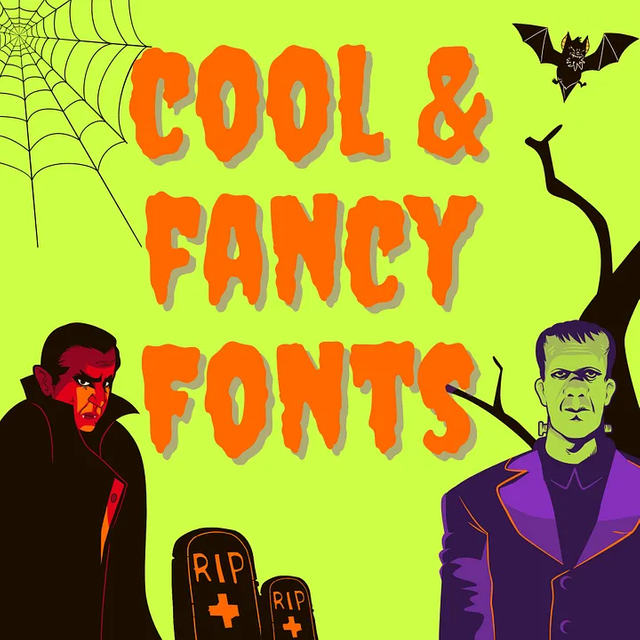
In visual communication, typography is a powerful tool to evoke emotions and set the tone for content. When embracing the allure of fancy fonts or the “tulisan aesthetic,” having a repertoire of reliable resources and tools is akin to unlocking a treasure trove of creative possibilities.
Countless digital platforms offer a plethora of fancy fonts, catering to every style and preference. Websites like Google, Adobe, and DaFont have emerged as havens for typography enthusiasts. These platforms curate an array of fonts, ranging from elegant scripts to decorative serifs, granting access to fonts that elevate the aesthetic appeal of any project.
Font marketplaces, such as Creative Market and My Fonts, are treasure troves for discovering unique fancy fonts crafted by talented designers. These marketplaces often provide previews, allowing users to visualize how a particular font might complement their designs. It empowers individuals to make informed choices that align with their creative visions.
Graphic design software, like Adobe Illustrator and Canva, offers built-in libraries of fonts, making it effortless to incorporate fancy fonts into various design projects. With intuitive interfaces, these tools democratize the creation of visually striking content, even for those who may not be typography experts.
In the age of social media, mobile applications like Over and Phonto extend the realm of fancy fonts to smartphones. These apps enable users to overlay text in various decorative fonts onto their photos, enhancing their visual storytelling capabilities.
However, while these resources are invaluable, it's essential to exercise caution and ensure that readability isn't sacrificed at the altar of aesthetics. The challenge lies in finding a harmonious balance where the chosen fancy font helps the ease of comprehension.